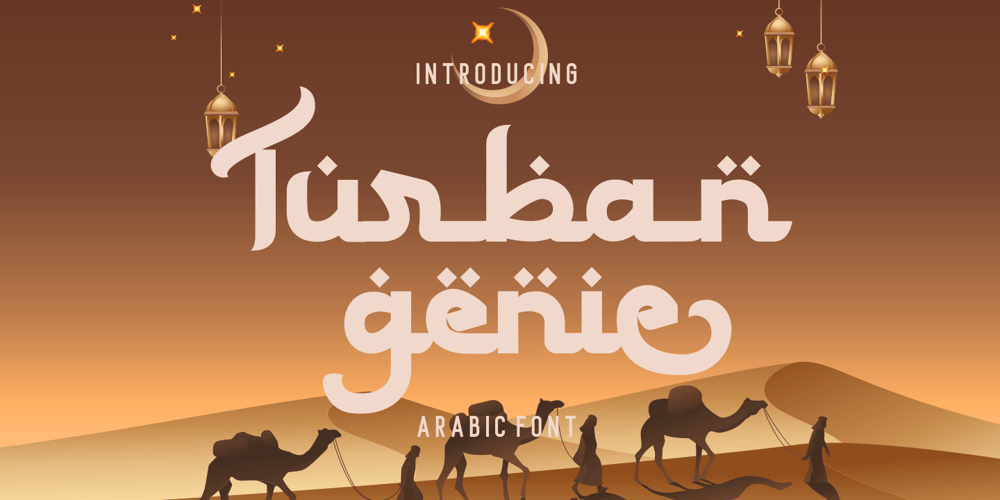
Turban Genie Font Family was designed by Putra Novembria Candra Kusuma and published by Putracetol. Turban Genie contains 1 styles and family package options. Step into the world of cultural sophistication with Turban Genie – Arabic Font. This meticulously crafted digital typeface embodies the elegance of Arabic calligraphy, adorning your designs with intricate details and strategically placed dots on select characters, reminiscent of traditional Arabic writing.